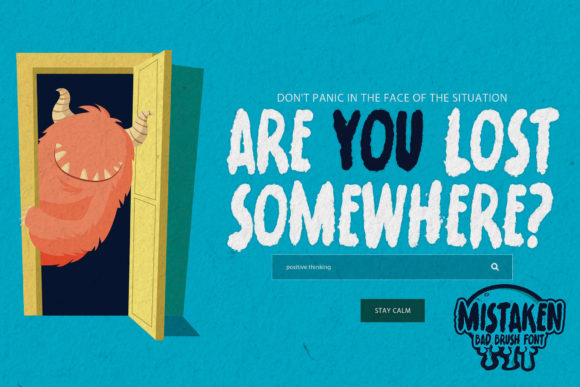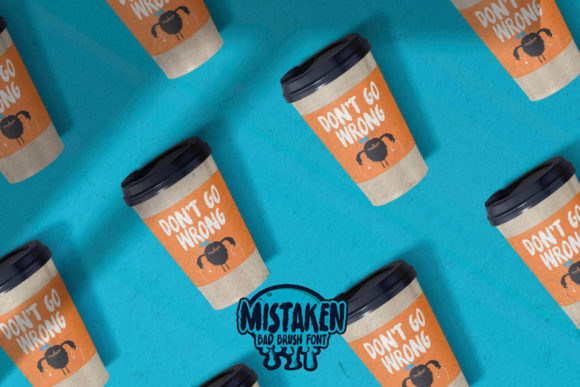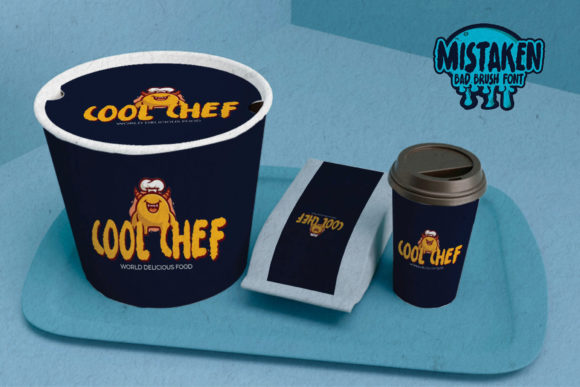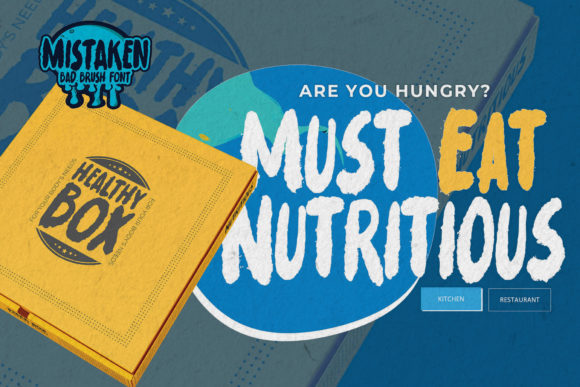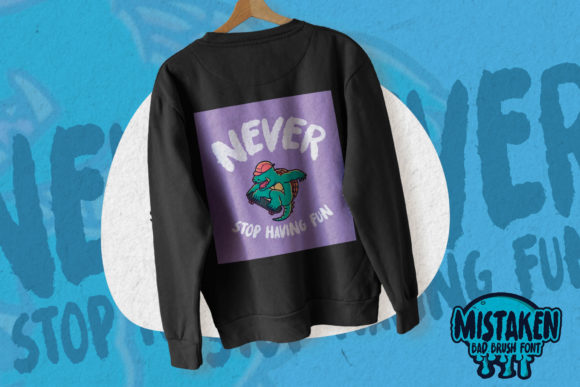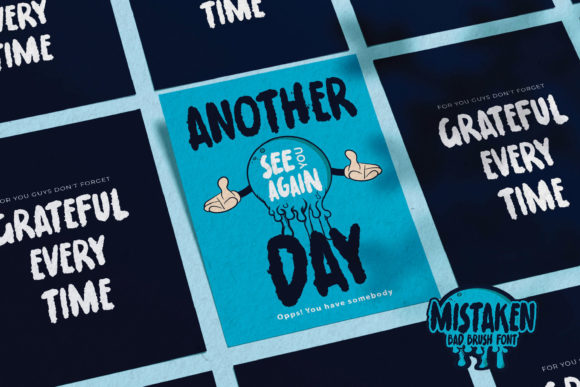
Introduction to Mistaken Font
Mistaken is a cool and bold looking display font.
It is paint brushed and will make each of your designs look really neat and interesting .